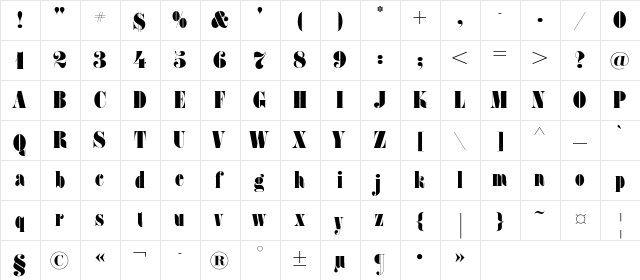
FatFaceC Regular
Design Context for FatFaceC Typeface
FatFaceC takes a measured approach to typography — its balanced proportions and neutral character make it a reliable workhorse for both digital and print work.